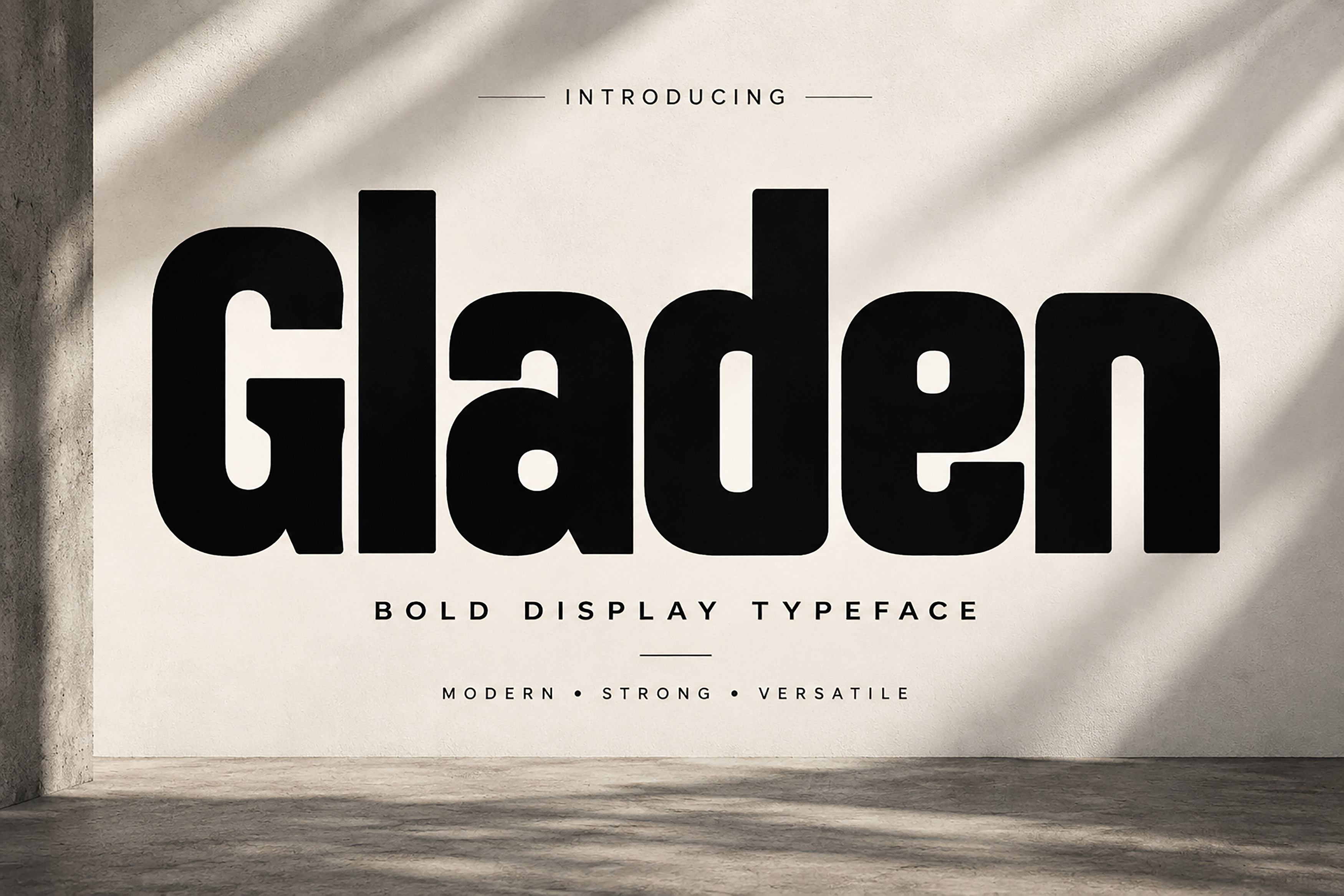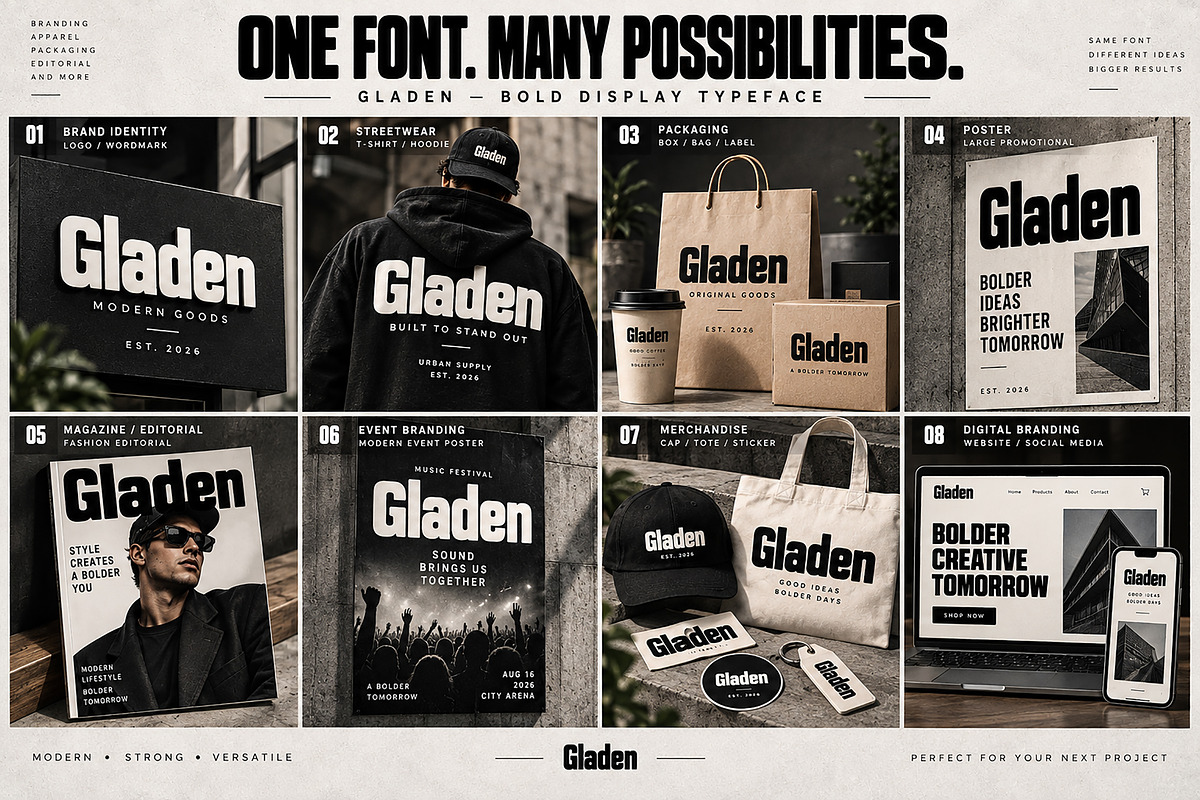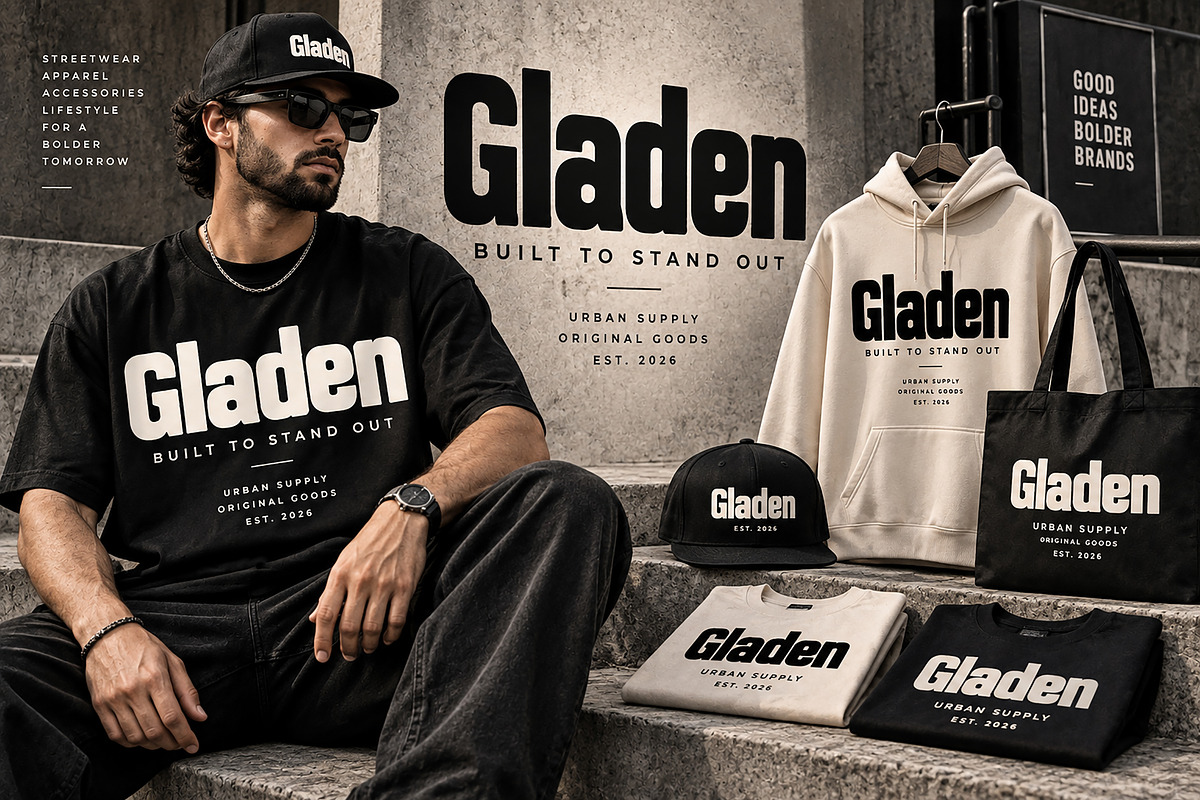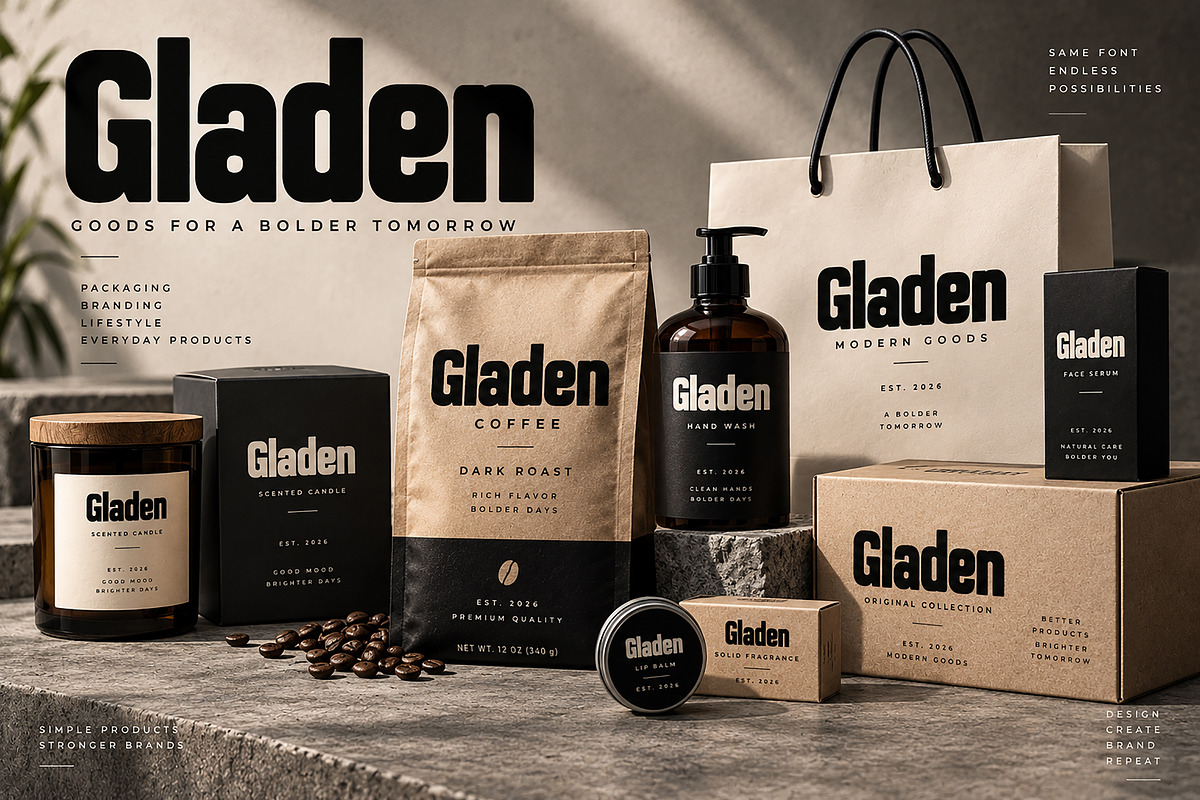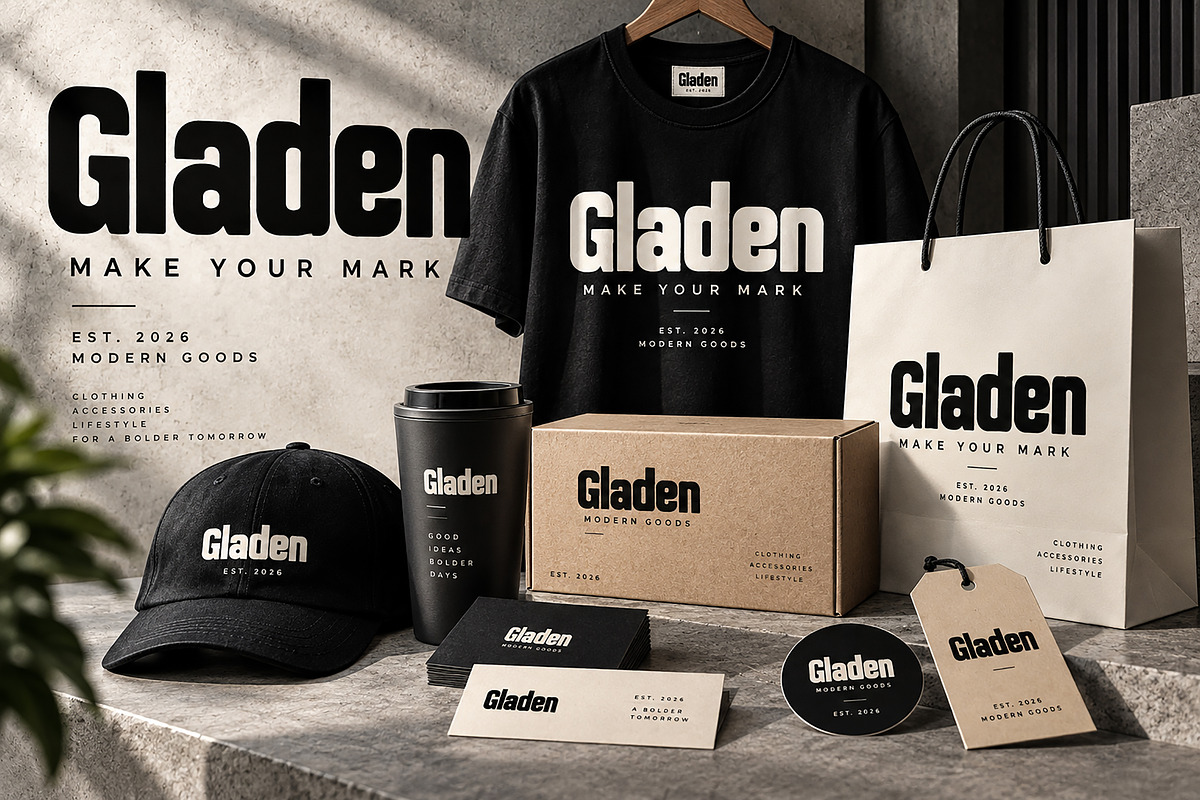
GLADEN — Bold Display Font
Gladen is a bold and powerful display typeface designed to make a strong visual statement. With its heavy weight, compact proportions, rounded forms, and distinctive character, Gladen brings an eye-catching presence to modern creative projects.
Its strong silhouette works especially well for branding, logos, wordmarks, streetwear, apparel graphics, posters, packaging, product identity, editorial designs, advertising, social media graphics, merchandise, and other attention-grabbing display applications.
Gladen is built for designers who want typography that feels modern, confident, bold, and highly visible. Use it for large headlines, brand identities, fashion campaigns, promotional graphics, product packaging, labels, and creative merchandise.
Logo & Brand Identity
Wordmarks
Streetwear & Fashion
T-Shirt & Hoodie Designs
Posters & Advertising
Labels & Stickers
Editorial & Magazine Design
Promotional Designs
Headlines & Display Typography
Font Name: Gladen
Style: Bold Display Typeface
Why Gladen?
Bold Presence • Strong Personality • Modern Appeal • Versatile Display Use
Gladen is made to help your typography stand out and give your designs a confident, contemporary visual identity.